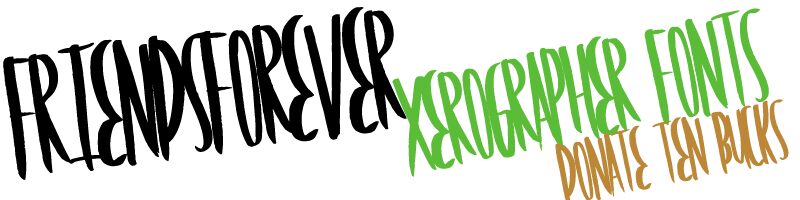
Friends Forever by Max Infeld of Xerographer.com is a free graffiti script with a wiry, hand-painted edge. Tall, compressed letters rise in uneven strokes, with sharp hooks and abrupt changes in width. The crowded forms have the restless look of marker tags.
Streetwear and underground music audiences will find it suited to apparel graphics, album covers, and event posters. Its stretched silhouettes can become part of urban photography or drawn artwork, echoing scratches, drips, and quick wall markings.
The font is named FRIENDS FOREVER.
Made with a brush marker.